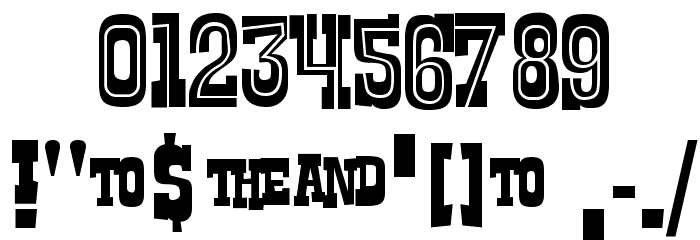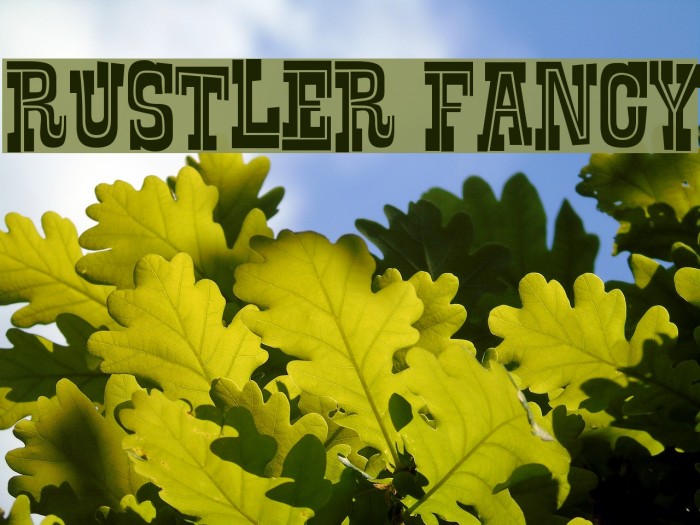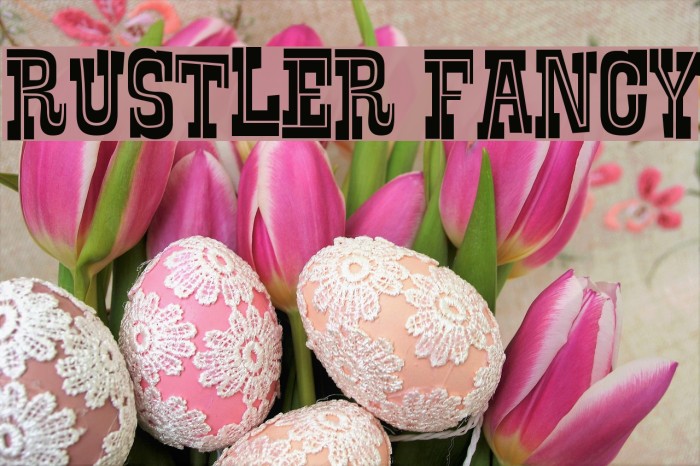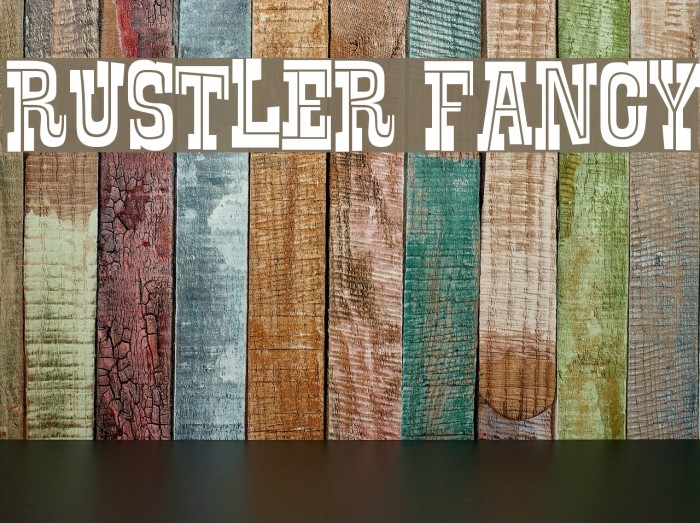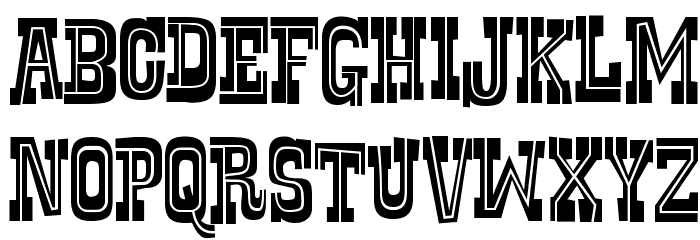
Rustler Fancy Font
Rustler Fancy Description
This font features a bold, decorative style with a strong Western influence. The letters are characterized by their thick, blocky forms and intricate detailing, including shadowing and inner line work that adds depth and dimension. The uppercase letters are particularly striking, with a robust presence that commands attention. The numerals and special characters maintain the same bold and decorative aesthetic, ensuring consistency across all glyphs. This font's unique style makes it ideal for projects that require a strong visual impact.
| Proposed Projects | Perfect for use in posters, signage, branding, and any project that requires a bold, eye-catching typeface. |